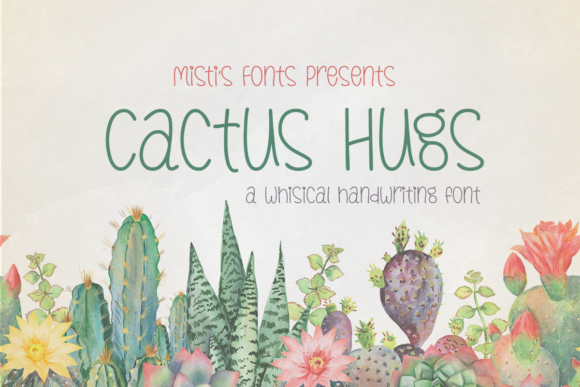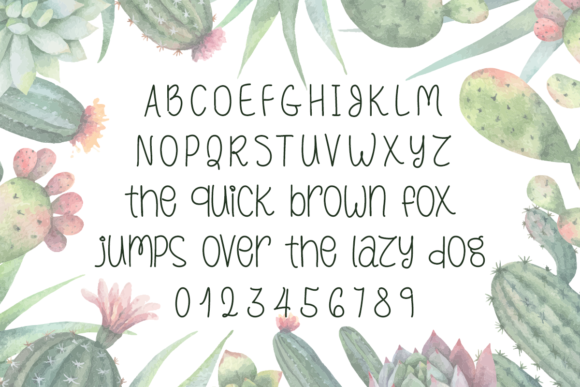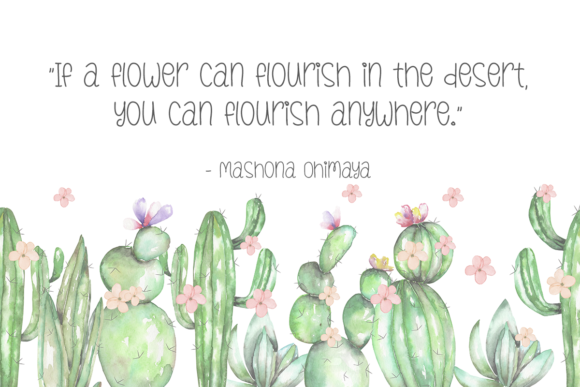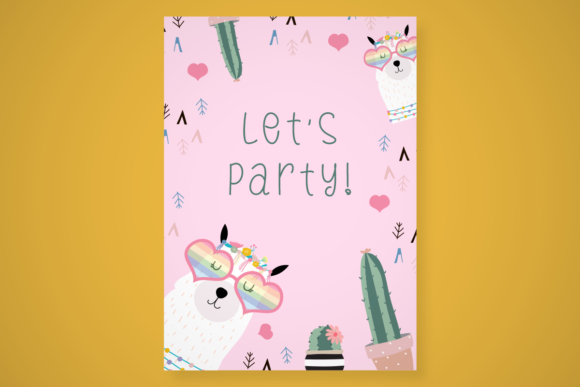
About Cactus Hugs Font
Cactus Hugs is an adorable handwritten typeface. It would be great on Etsy shop logos, banners, and products. Its playful style makes it ideal for creating charming greeting cards and personalized items, as well as for cartoon or children-themed projects.